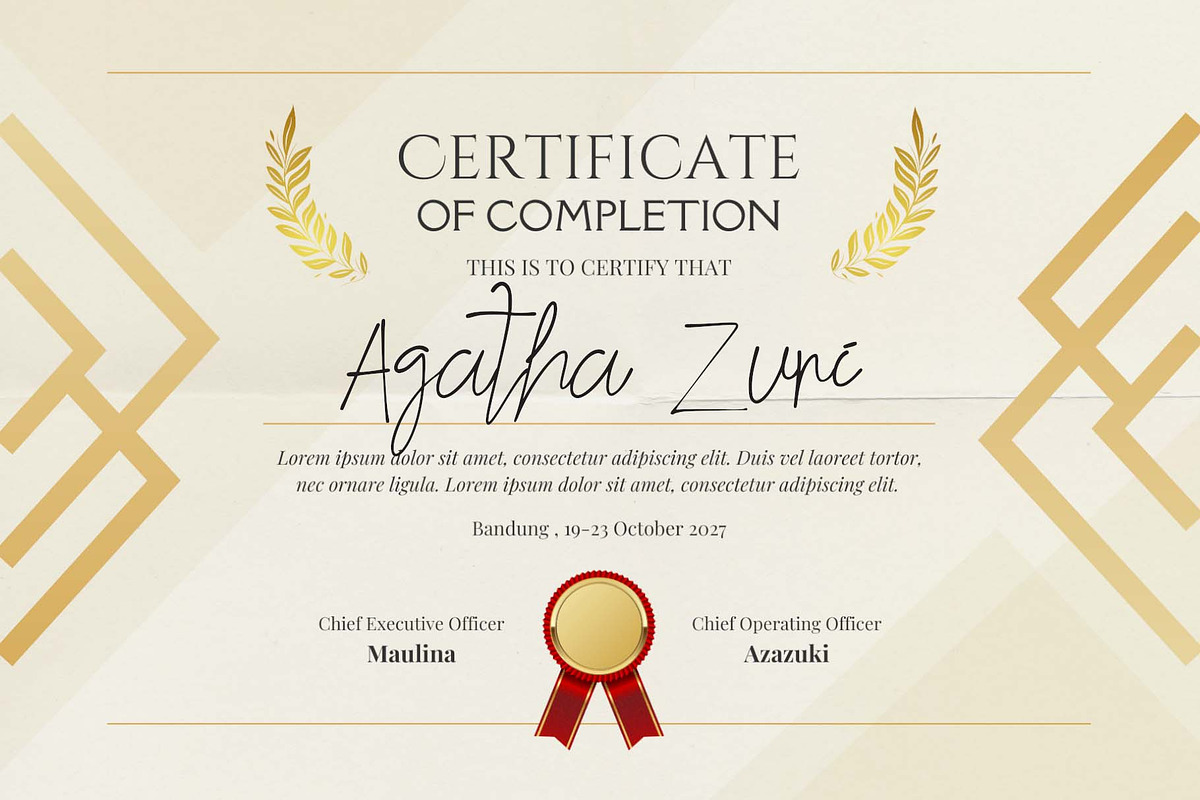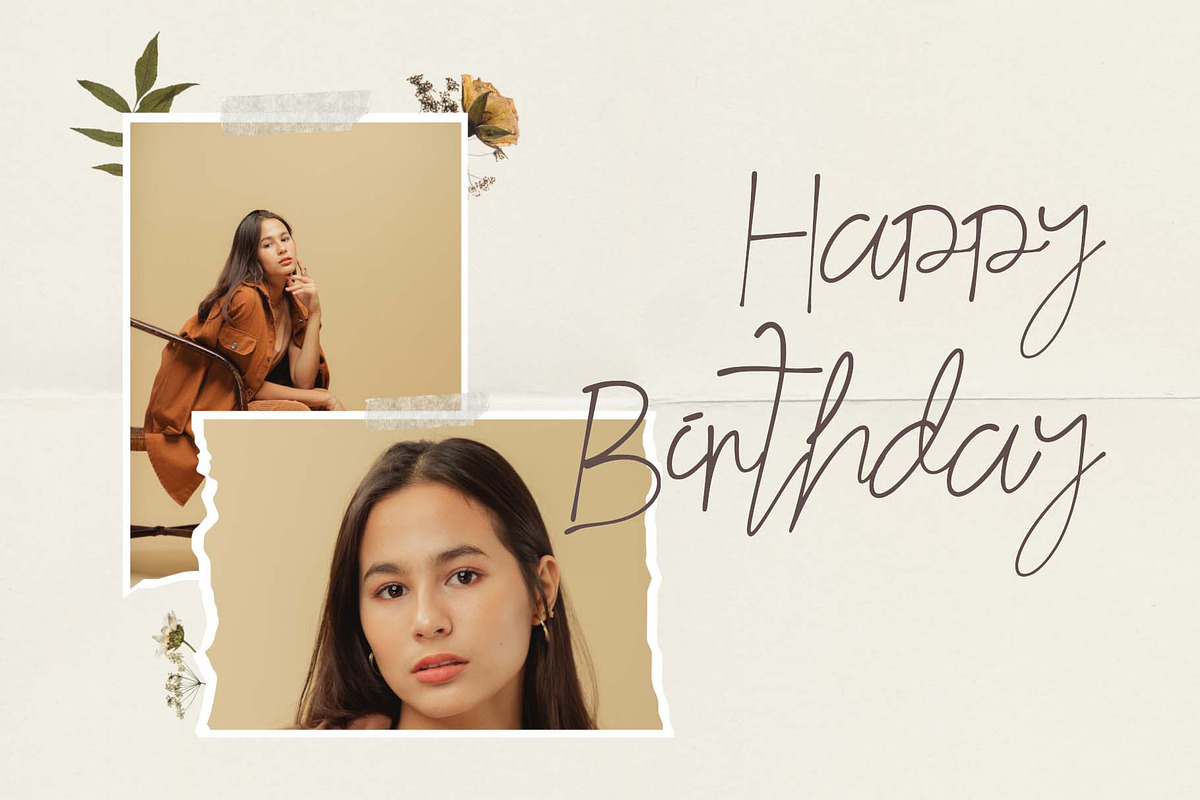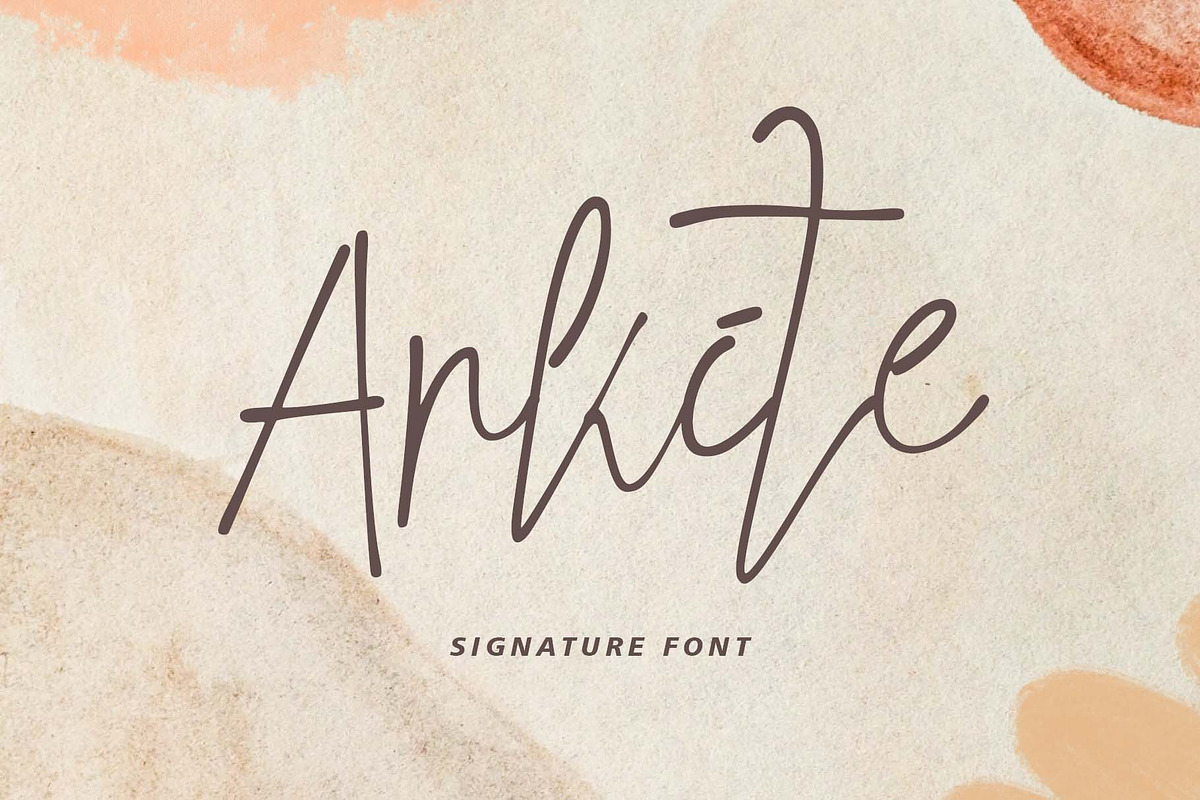
Arkite
"Arkite" is a very elegant and beautiful signature font. This font is equipped with lowercase, uppercase, numerals, punctuations and multilingual support. Can be used for weddings, book titles, music titles, book covers, social media, branding, banners, posters, stickers and more